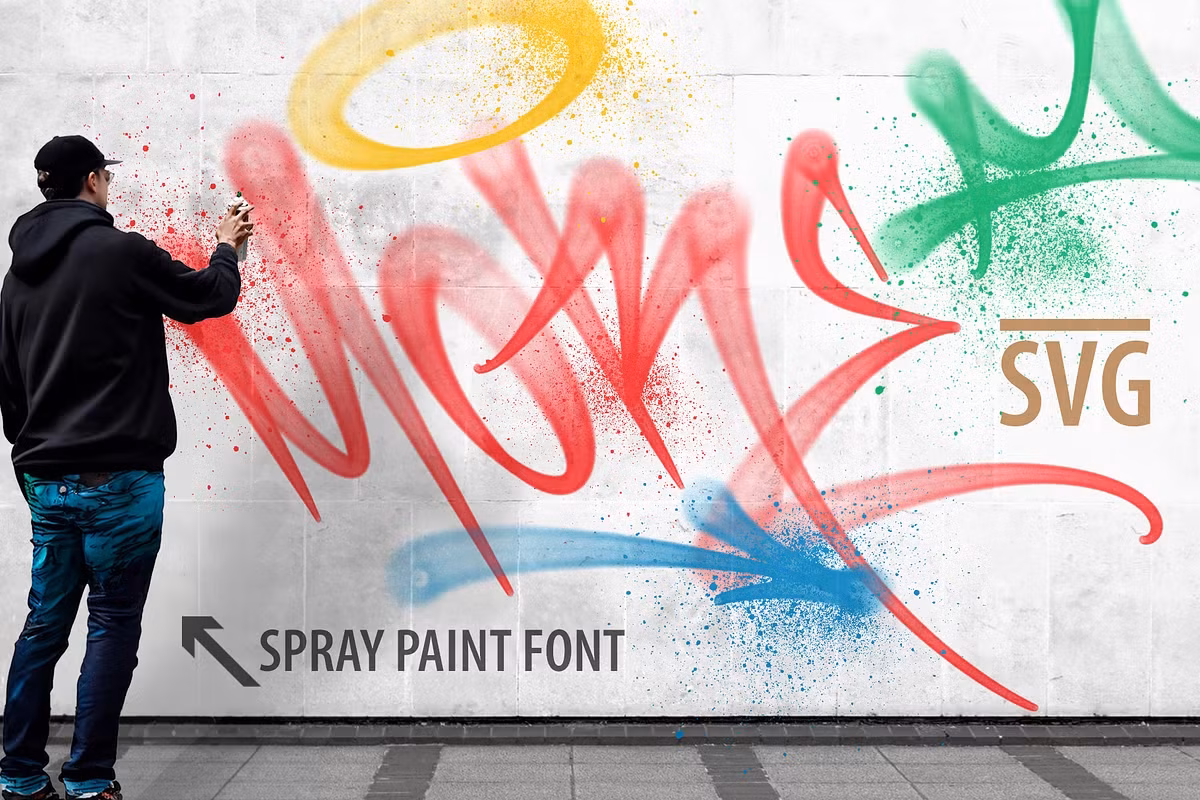
You must purchase this font for commercial use. However, you can download More | Graffiti Spray Paint SVG Font Free Download for testing purposes. More is a bold and expressive graffiti spray paint font that adds an urban, street-art aesthetic to your designs. Perfect for creating eye-catching posters, logos, album covers, clothing designs, and anything with an edgy, artistic vibe, this font brings the energy of street art into your projects.
Designed as an SVG font, More preserves the rough texture and realistic spray-paint effects, giving your text a true graffiti feel. Its gritty, hand-sprayed appearance makes it perfect for projects that need to stand out and make a statement.